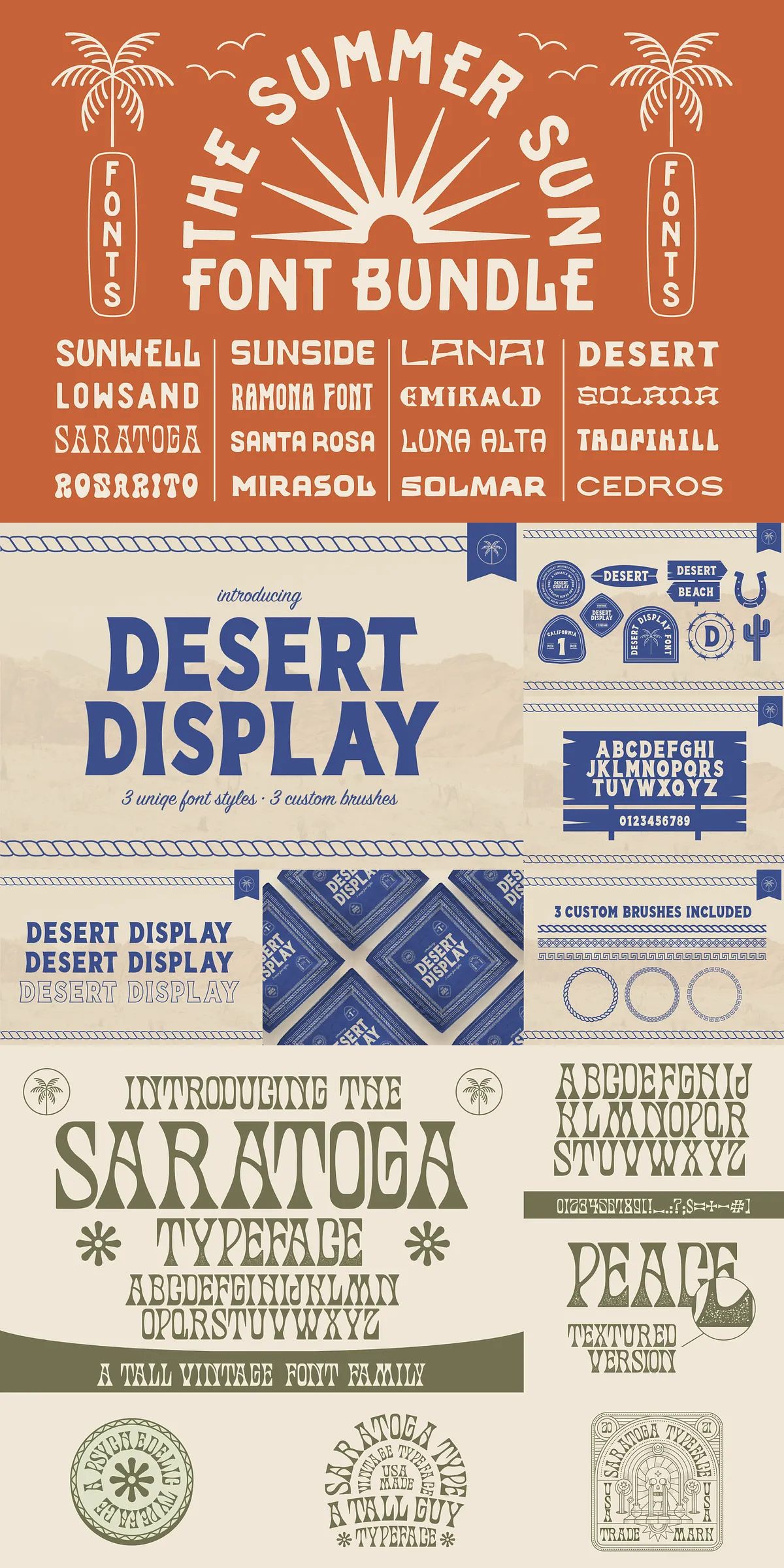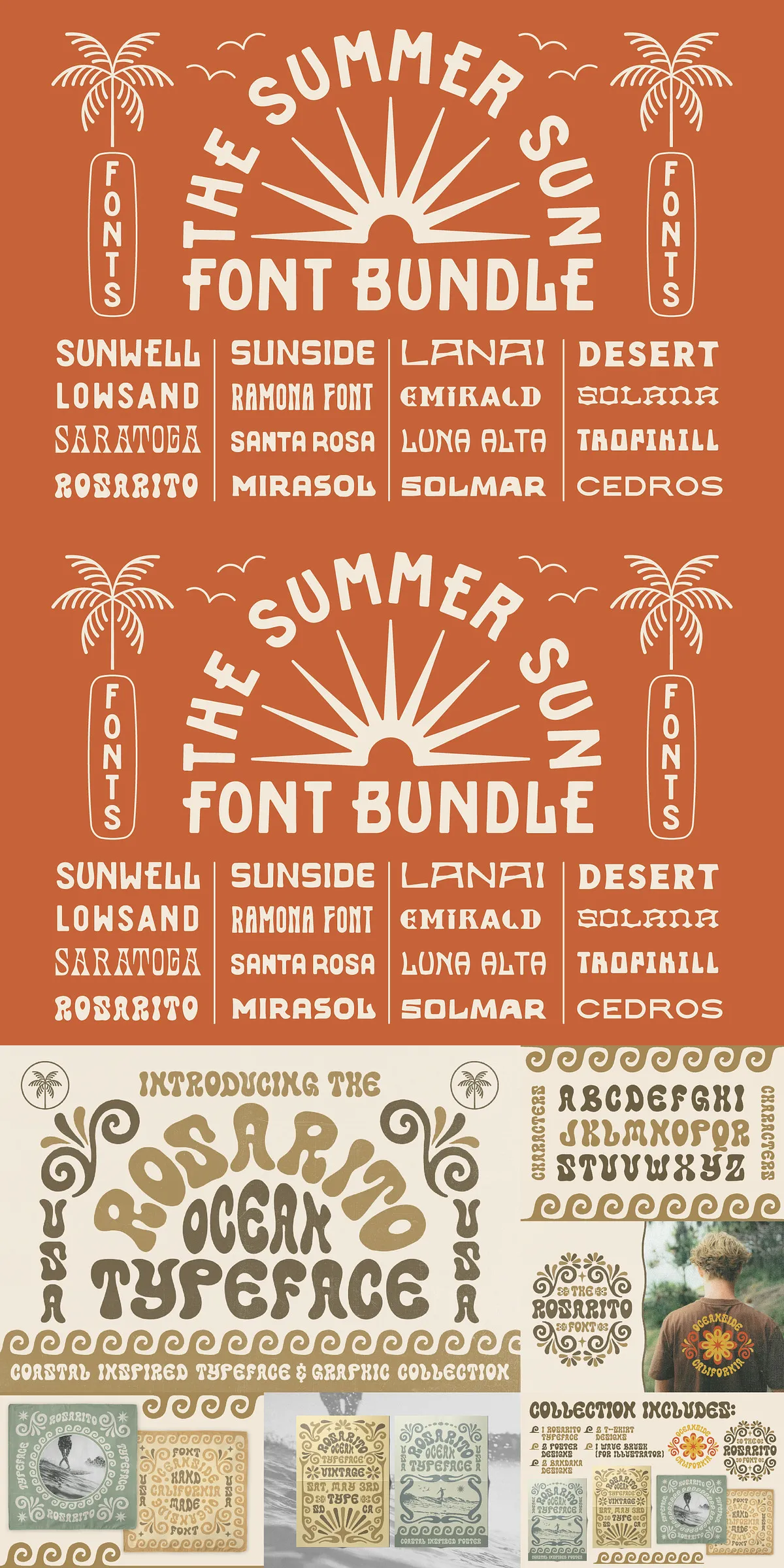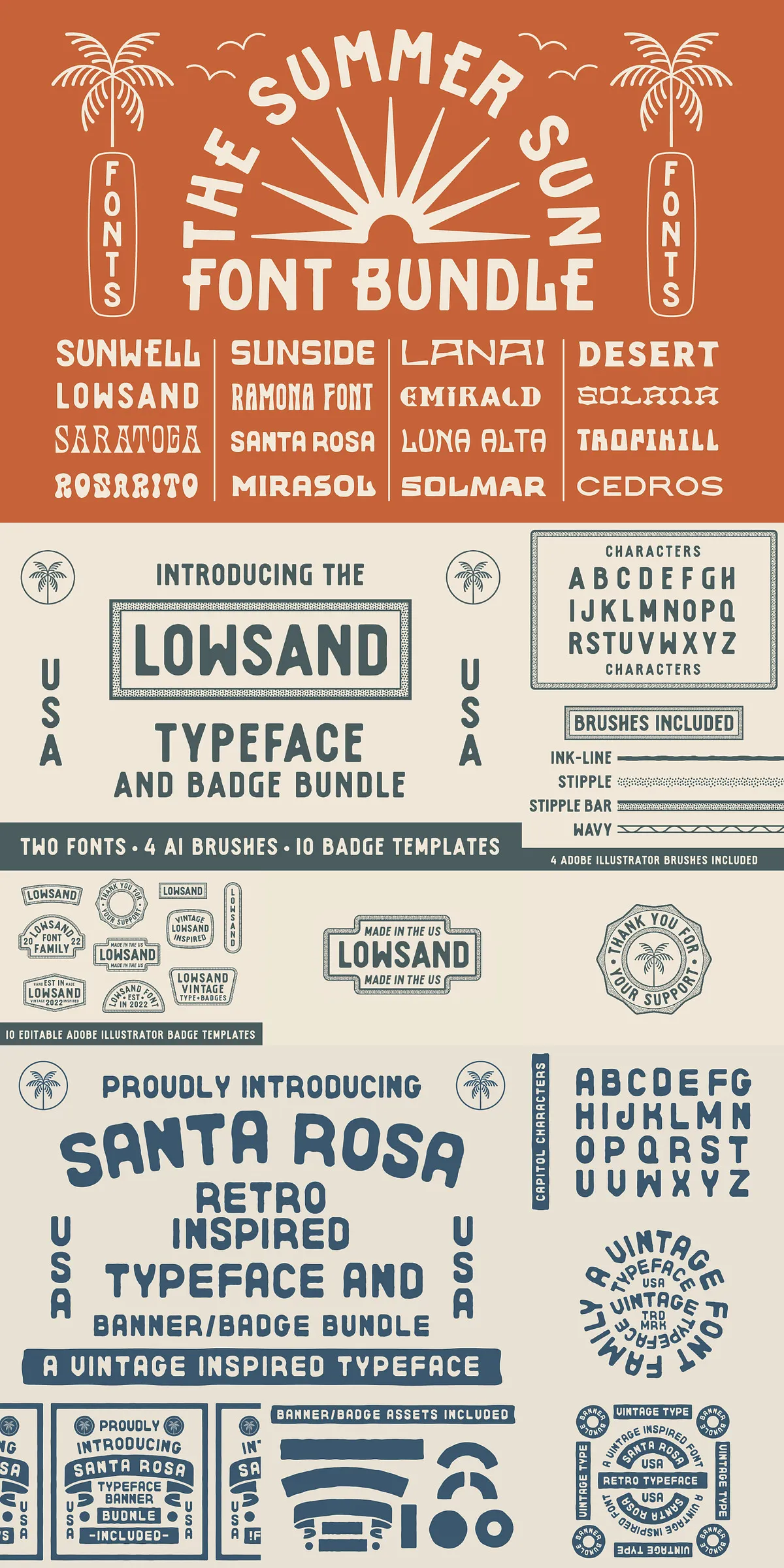
Summer Sun Font Bundle-Coastal Type
This comprehensive Sunwell bundle empowers designers with a ready-to-use toolkit that accelerates creative production and elevates visual identities. The package delivers 38 font styles, 50 badge templates and illustrations, and 10 .AI brushes that integrate seamlessly into brand systems, packaging, social assets, and printed collateral. Each element in the bundle focuses on flexibility and fast execution so you can produce professional results without rebuilding base assets from scratch.
What This Design Toolkit Contains In Full
The bundle pairs a broad font family with polished visual assets and editable brush files. It includes a robust set of typefaces and supporting resources so you can build logos, headlines, badge marks, and illustrative details with coherent styling across projects. The toolkit was assembled to reduce iteration time and to provide reliable building blocks for both client work and personal projects.
Fonts Included In This Bundle
The collection features 15 distinct font names that together provide 38 total font styles. Use these families for display typography, subheads, and brand wordmarks. The fonts included are:
• Sunwell
• Lowsand
• Saratoga
• Rosarito
• Sunside
• Ramona
• Santa Rosa
• Mirasol
• Lanai
• Emirald
• Luna Alta
• Solmar
• Desert
• Solana
• Tropikil
• Cedros
Across these families you will find multiple weights, stylized alternates, and display-ready variants that let you craft contrasts between headlines and supporting copy quickly. The 38 font styles cover a variety of moods from warm retro to clean modern display, enabling broad creative application.
Badge Templates And Illustration Assets Included
The bundle ships with 50 editable badge templates and accompanying illustrations designed to pair with the fonts. Each badge arrives as an editable vector so you can customize elements, swap type, and export for digital and print formats. These templates accelerate logo exploration, product lockups, and promotional badges for campaigns or packaging.
AI Brushes And Workflow Files Included In The Kit
Ten .AI brush files provide handcrafted texture and stroke variety that enhance typographic marks and illustrations. Use the brushes to introduce organic edges, ink textures, or vintage distressing that complements the type styles. The brushes are optimized for Adobe Illustrator but export easily for raster workflows when needed, giving you flexible stylistic control.
How Designers Will Use This Bundle Across Projects
Designers will adopt this toolkit to prototype identities, develop packaging systems, and produce campaign assets with consistent visual language. The font styles give you a hierarchy of display and secondary text options; the badge templates offer ready-made identity marks; and the brushes add finish and texture to layouts. Together they shorten the creative cycle and ensure cohesive results across touchpoints.
Recommended Applications And Best Practices
• Brand identity: establish headline and subhead pairings, then customize a badge as a secondary mark.
• Packaging: use bold font styles for product names and badge templates for seals, limited editions, or details.
• Marketing collateral: apply badge templates and brushes to posters, social ads, and hero banners for instant impact.
• Logotype exploration: combine multiple font styles and badge layouts to iterate quickly on proposals.